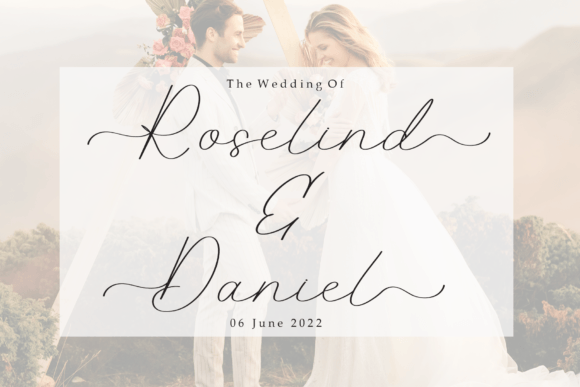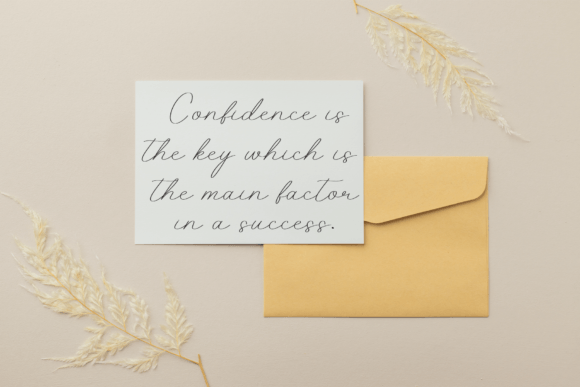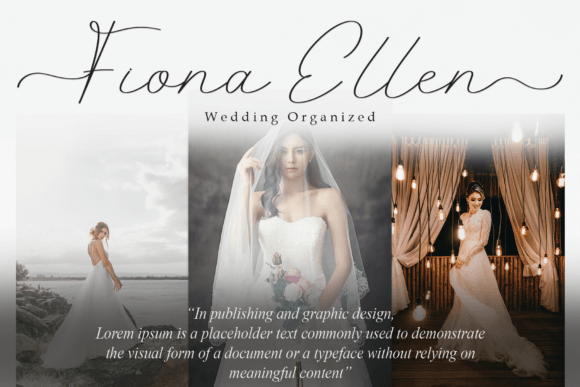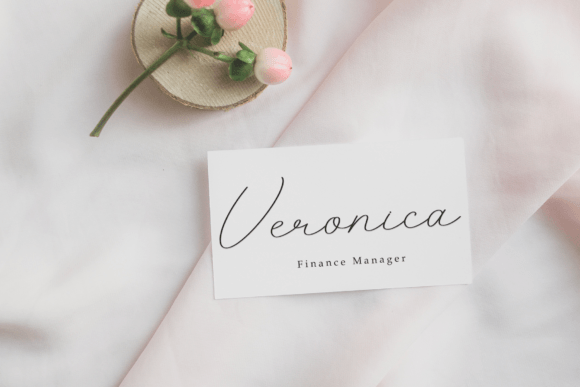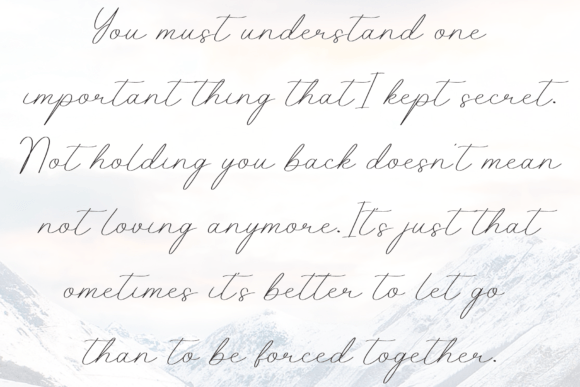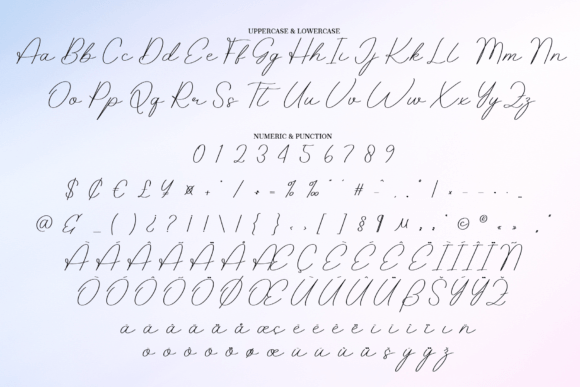
Introducing Giovany Font: Elevate Your Creativity with Elegance
Are you a designer, crafter, or DIY enthusiast looking for a font that can add a touch of magic to your creative projects? Look no further than Giovany Font, a beautiful script font designed to bring elegance and sophistication to your work. In this article, we’ll explore the features and benefits of Giovany Font, and show you how it can help you turn your creative ideas into stunning works of art.
What is Giovany Font?
Giovany Font is a carefully crafted script font that combines the beauty of calligraphy with the versatility of digital design. With its flowing lines, intricate details, and elegant flair, Giovany Font is perfect for a wide range of creative projects, from Instagram posts and social media graphics to DIY crafts and handmade cards.
Key Features of Giovany Font
- Magical Script Style: Giovany Font features a unique and enchanting script style that’s perfect for adding a touch of whimsy to your designs.
- Elegant and Sophisticated: With its refined lines and classic flair, Giovany Font is ideal for creating sophisticated and eye-catching designs.
- Highly Versatile: Whether you’re designing for digital or print, Giovany Font can be used for a wide range of projects, from social media graphics to craft projects and more.
Giovany Font is a dream come true for designers and crafters who want to add a touch of elegance and sophistication to their work. Whether you’re creating social media graphics, crafting handmade cards, or designing DIY projects, Giovany Font is the perfect choice. Its unique and enchanting style will add a touch of magic to your designs, making them stand out from the crowd.
Use Giovany Font for Instagram and Social Media
In today’s digital age, having a strong online presence is crucial for designers, crafters, and small businesses. Giovany Font is perfect for creating stunning social media graphics, Instagram posts, and Facebook updates that will grab the attention of your followers and leave a lasting impression.
Tips for Using Giovany Font
- Experiment with Colors: Giovany Font looks amazing in a variety of colors, so don’t be afraid to experiment and find the perfect hue for your design.
- Mix and Match: Combine Giovany Font with other fonts and design elements to create unique and eye-catching designs.
- Pay Attention to Details: Giovany Font is all about elegance and sophistication, so make sure to pay attention to details and use the font in a way that showcases its beauty.